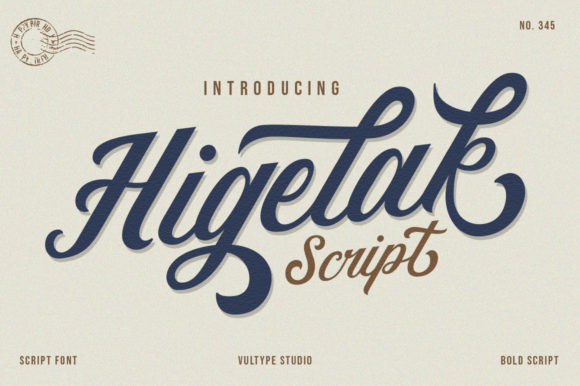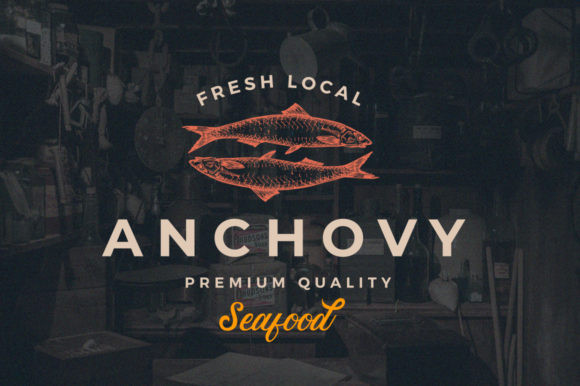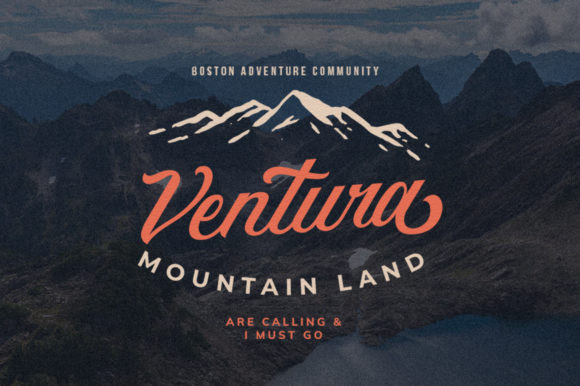
Higelak Font
Higelak FontHigelak is a vintage and unique handwritten font. This fantastic font is best suited for headlines of all sizes, as well as for blocks of text. Whether it’s for web, print, moving images or anything else, Higelak will look spectacular in any context!